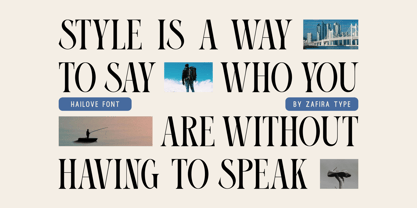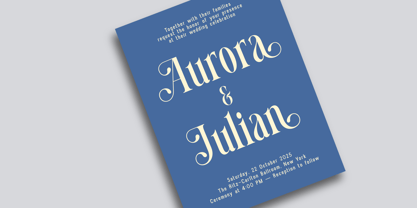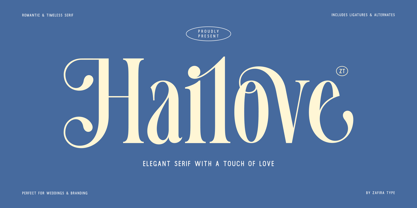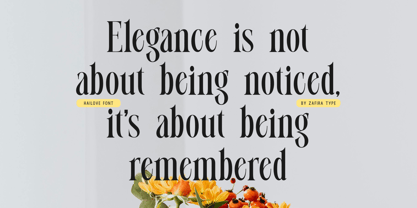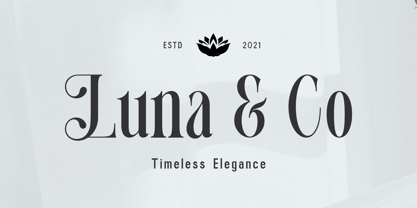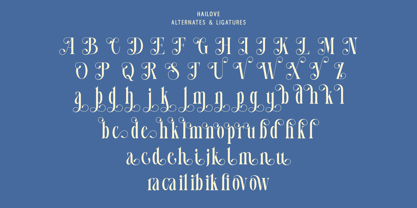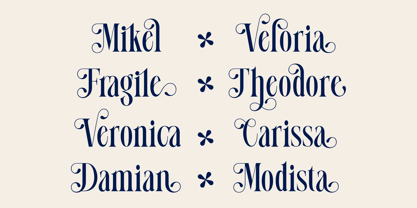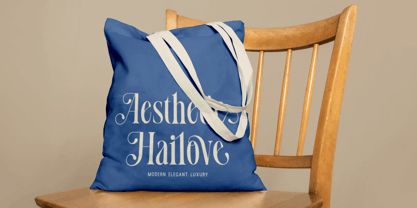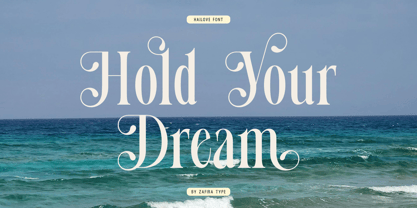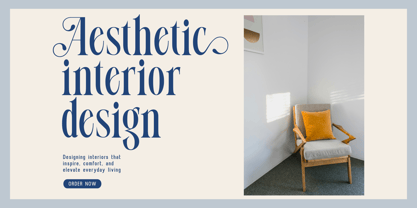
Hailove
by Zafira Type
The Hailove Font Family was designed by Su Hirno and published by Zafira Type. Hailove contains 2 styles and family package options. More about this family
Hailove is an elegant serif font that blends timeless classic style with a touch of modern sophistication. Each letter is carefully crafted with fine details and balanced proportions, making this typeface luxurious yet highly legible. Its graceful character evokes a romantic and professional feel, making it versatile for a wide range of design projects.
Perfect for:
• Logos & branding
• Editorials & magazines
• Wedding invitations
• Packaging design
• Posters & headlines
With its timeless serif elegance and stylish modern vibe, Hailove is the perfect choice for designers who want to bring a classy touch to every project.
Designers: Su Hirno
Foundry: Zafira Type